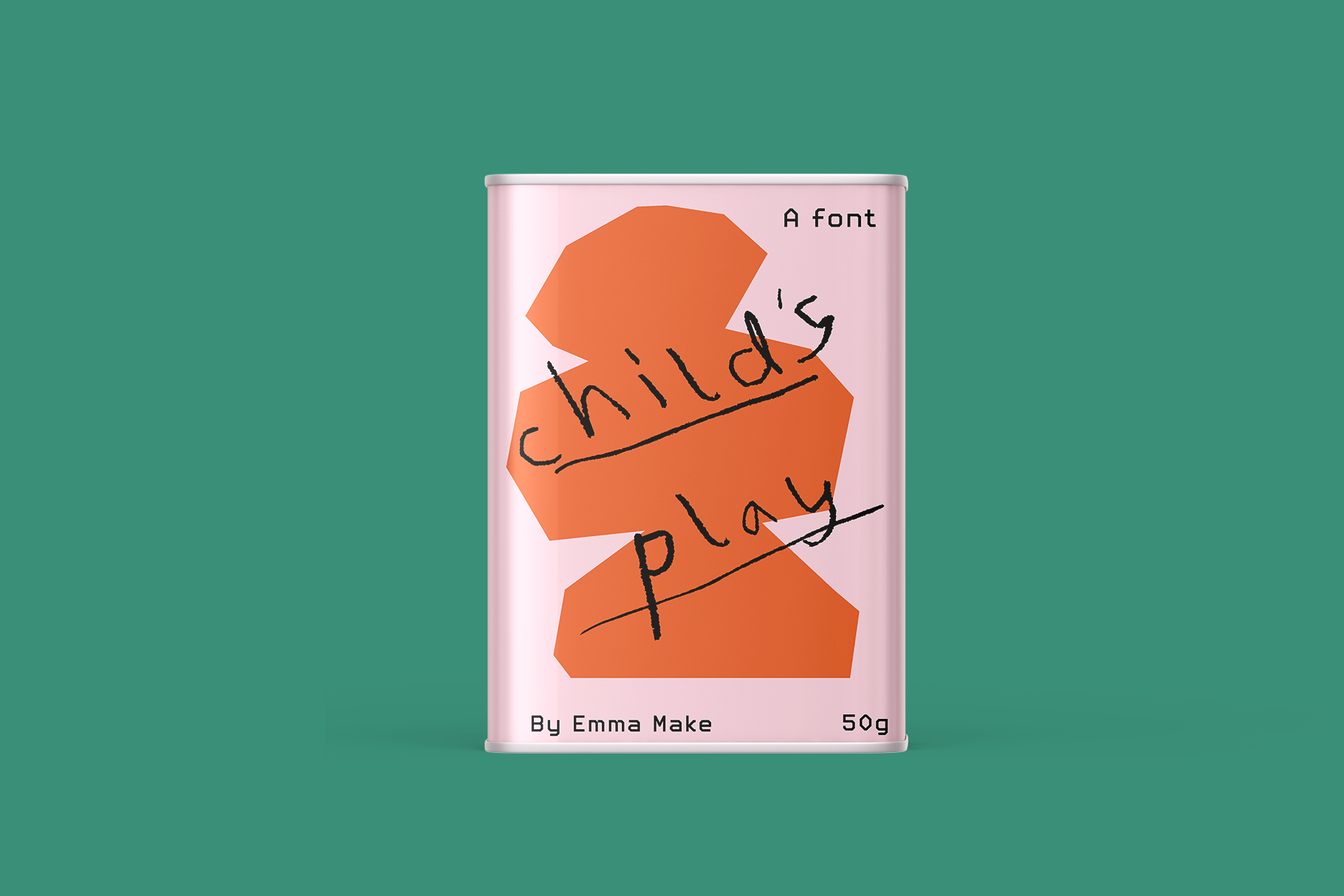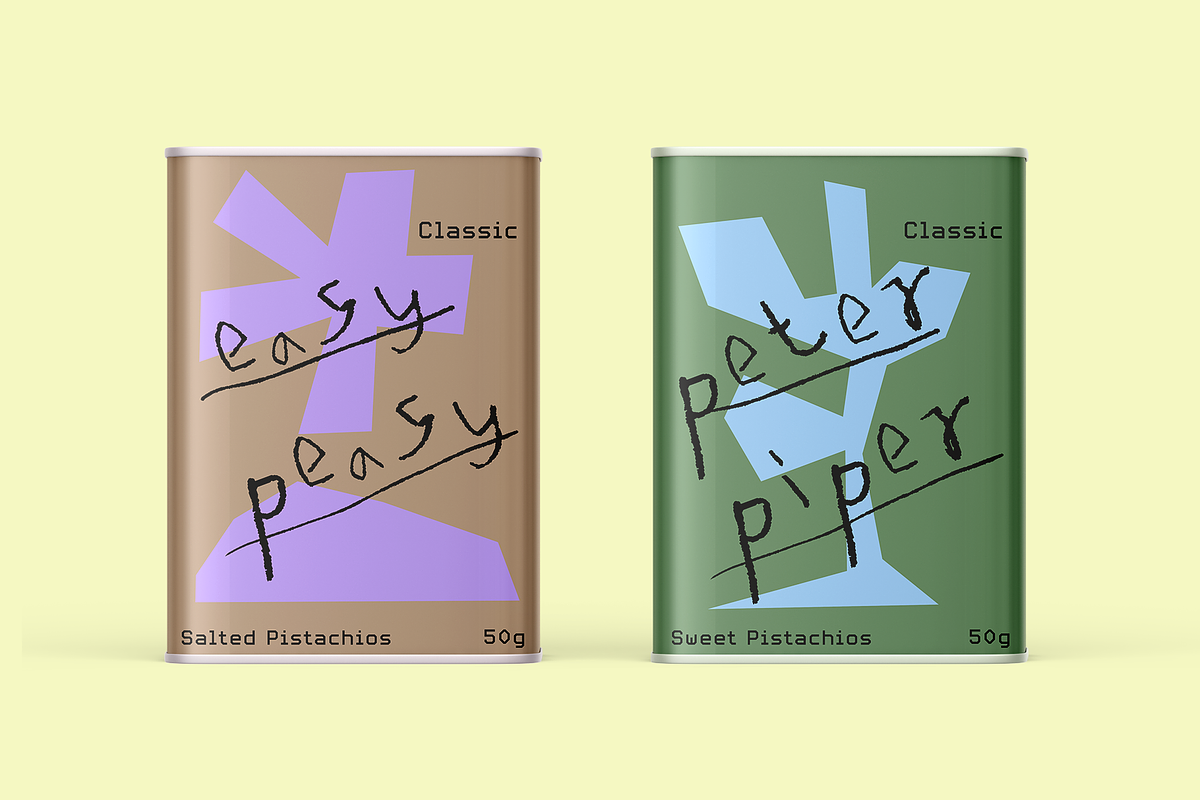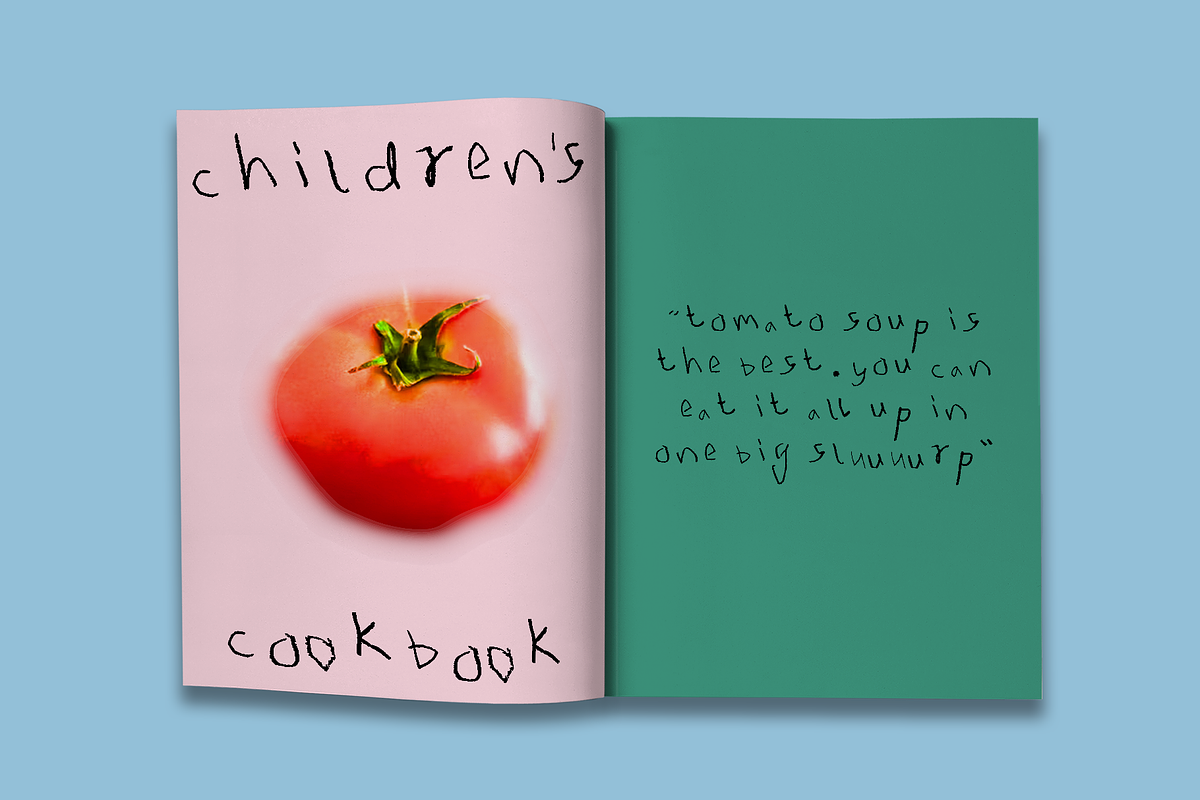
Child's Play a Handdrawn Kids font
Child's Play is a handdrawn font inspired by kids handwriting. The hand-drawn feel gives it the perfect edge to accompany drawings and hand-drawn posters or websites. It's imperfect edge also compliments any display font needs.